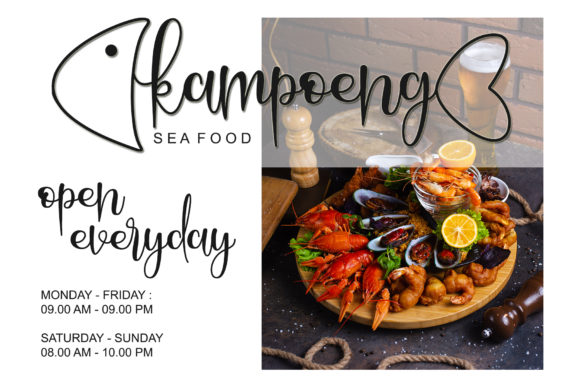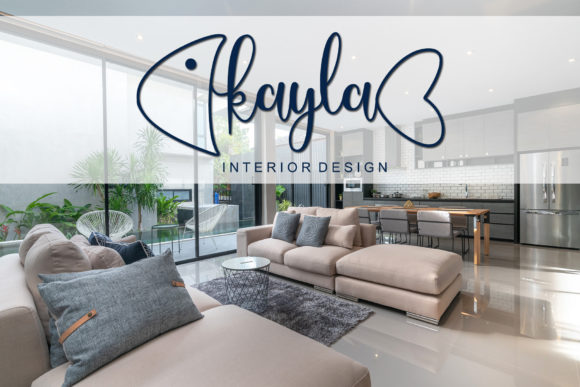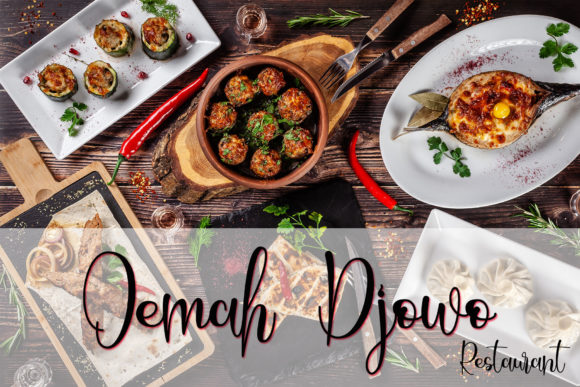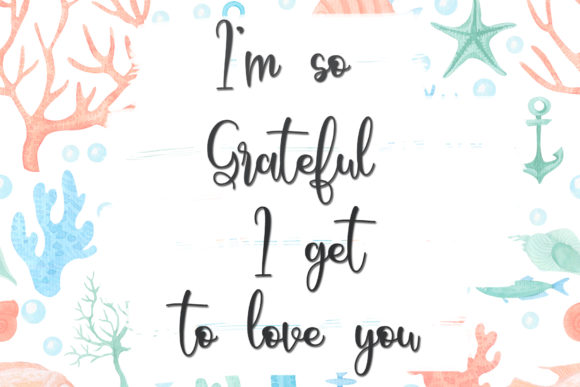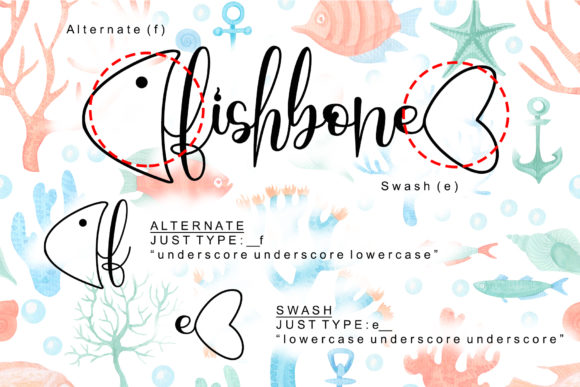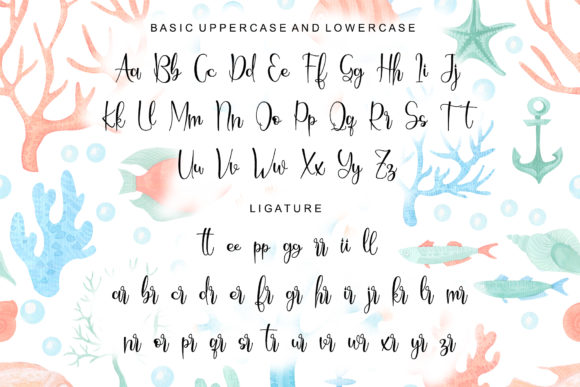
Introducing Fishbone Font: Elevate Your Designs with a Unique Calligraphy Style
In the realm of typography, a well-chosen font can make all the difference in transforming a design from ordinary to extraordinary. For designers and crafters seeking a modern calligraphy font that exudes elegance and sophistication, Fishbone Font is an exceptional choice. This stunning typeface boasts flowing letters that not only add a touch of uniqueness to your designs but also feature a captivating fish model, making it a standout in the world of typography.
Key Features of Fishbone Font
- Modern Calligraphy Style: Fishbone Font embodies the essence of modern calligraphy, with its fluid and dynamic letterforms that can instantly elevate the aesthetic of any design project.
- Unique Fish Model: What sets Fishbone Font apart is its incorporation of a fish model, adding a whimsical and creative twist to the traditional calligraphy font.
- Versatility: This beautiful and professional typeface is incredibly versatile, making it suitable for a wide range of design applications including posters, headlines, subheadings, logo designs, branding, and much more.
- PUA Encoding: Fishbone Font is PUA (Private Use Area) encoded, which means that accessing all the glyphs and swashes is straightforward, allowing for greater flexibility and creativity in your designs.
Applications of Fishbone Font
The versatility of Fishbone Font makes it an invaluable asset for designers across various projects. Here are some of the key areas where this font truly shines:
- Posters and Flyers: Create eye-catching posters and flyers with a professional and modern appeal. The flowing letters and unique fish model will undoubtedly make your promotional materials stand out.
- Headlines and Subheadings: Add a touch of elegance to your articles, blogs, and magazines with Fishbone Font. Its readability and aesthetic appeal make it perfect for headlines and subheadings.
- Logo Designs: For businesses looking to make a memorable first impression, Fishbone Font can be used to craft unique and captivating logos that reflect the brand’s personality.
- Branding: Consistency in branding is key, and with Fishbone Font, you can ensure that your brand’s message is conveyed with a distinct and recognizable style across all platforms.
Why Choose Fishbone Font?
In a sea of fonts, Fishbone Font offers a refreshing blend of modernity, creativity, and professionalism. Here are a few reasons why designers and crafters are gravitating towards this unique typeface:
- Unique Aesthetic: The combination of modern calligraphy and a fish model offers a fresh perspective in typography, allowing designers to create works that are not only visually appealing but also distinctive.
- Ease of Use: Thanks to its PUA encoding, designers can easily access and incorporate the various glyphs and swashes into their designs, making the creative process smoother and more efficient.
- Cross-Platform Compatibility: Fishbone Font can be seamlessly integrated into various design software, ensuring that your creative vision can be realized across different platforms and mediums.
Fishbone Font is more than just a typeface; it’s a creative tool that offers designers and crafters the opportunity to infuse their projects with a unique and modern aesthetic. Its blend of flowing calligraphy letters and a captivating fish model, coupled with its versatility and ease of use, makes it an excellent choice for a wide range of design applications. Whether you’re working on a poster, logo, or branding materials, Fishbone Font is sure to elevate your designs to new heights. Dive into the world of Fishbone Font today and discover how this exceptional typeface can transform your creative projects.